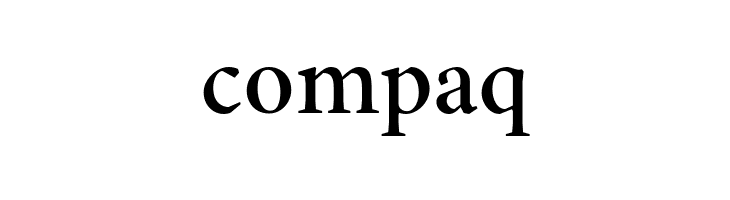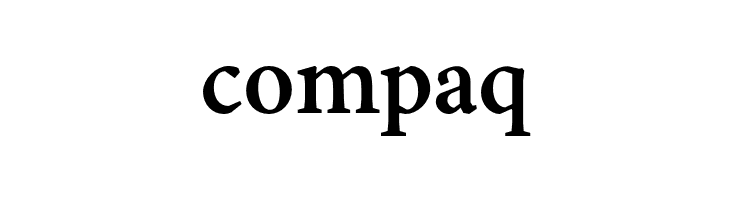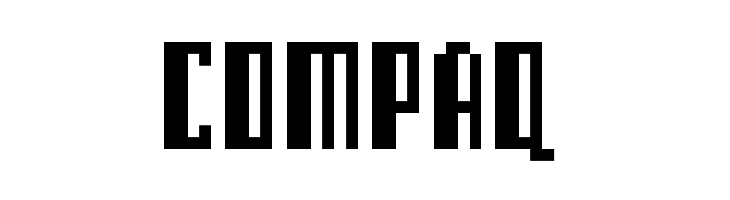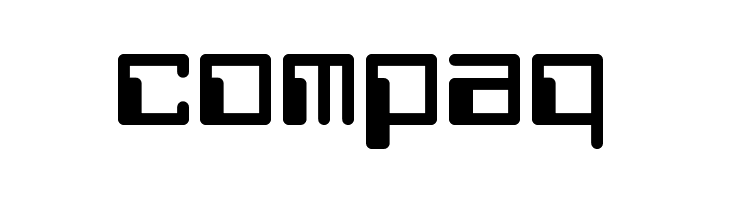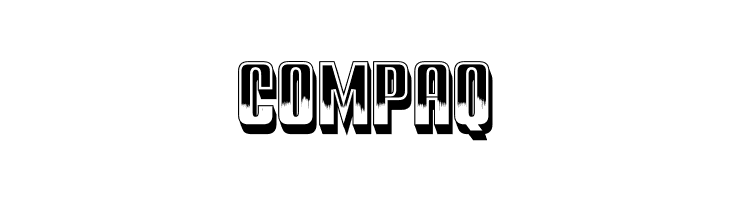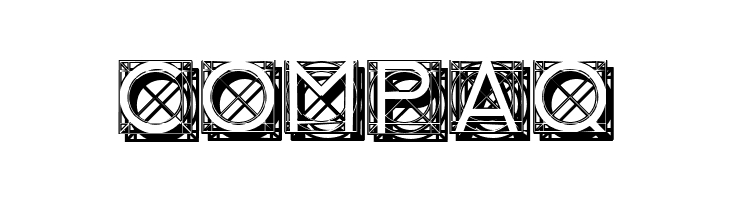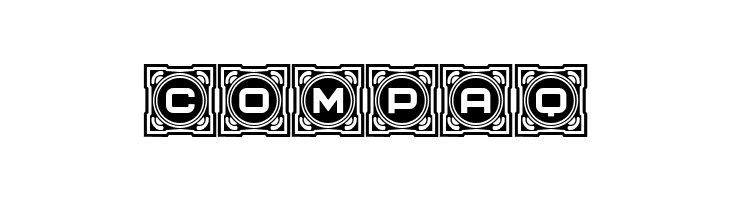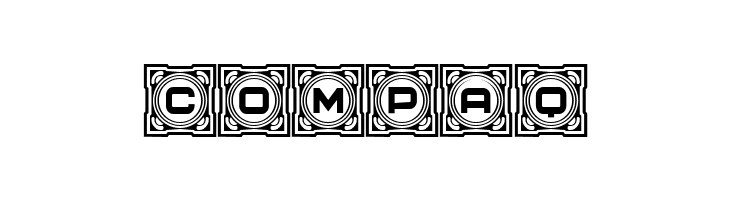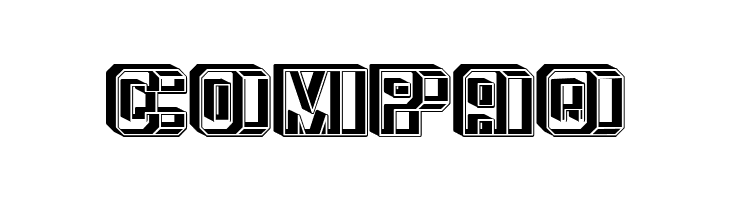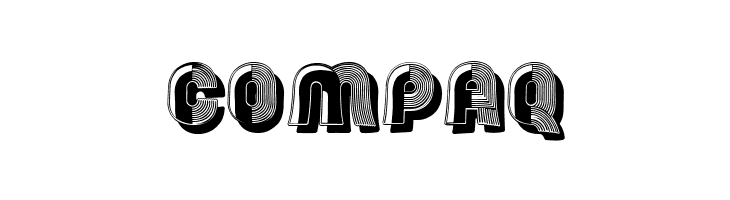
• CompaniaDEMO
An elegant, flowing script font with interconnected, cursive strokes.
• COMPANY
A bold, geometric font with a vintage athletic style.
• Company Regular
A bold, decorative font with a three-dimensional effect and intricate detailing.
• CompanyProblem
A playful, hand-drawn font with a casual and whimsical style.
• Compaq 1982 Demo
A bold, italicized font with a retro, dynamic style.
• Compaq1982-Demo
A bold, italicized font with dynamic slanted characters and thick strokes.
• Compare
A bold, rounded font with a modern and clean design.
• Compare Light Regular
A bold, decorative font with ornate square frames around each character.
• Compare Regular
A bold, decorative font with geometric shapes and intricate borders, ideal for impactful display use.
• Compass
• Compass Bold
A bold, modern sans-serif font with geometric proportions and strong visual impact.
• Compass Book
A playful, casual handwritten font with smooth, flowing lines.
• Compass LT
A modern, geometric sans-serif font with clean lines and balanced spacing.
• Compass Regular
A decorative font with intricate geometric patterns and bold, framed letters.
• CompletelyScripted
A whimsical script font with flowing, interconnected letters and playful loops.
• Complex
A bold, geometric font with a modern and structured design.
• Complex bruja
A decorative, gothic-inspired font with thorn-like extensions.
• Complex Regular
A bold, three-dimensional font with a layered, geometric design.
• Composition
A playful, informal handwritten font with uneven strokes and a casual flair.
• Comprehension-Dark
A classic serif font with elegant strokes and moderate contrast, offering a timeless and sophisticated look.
• Comprehension-SemiBold
A classic serif font with semi-bold weight, offering elegance and readability.